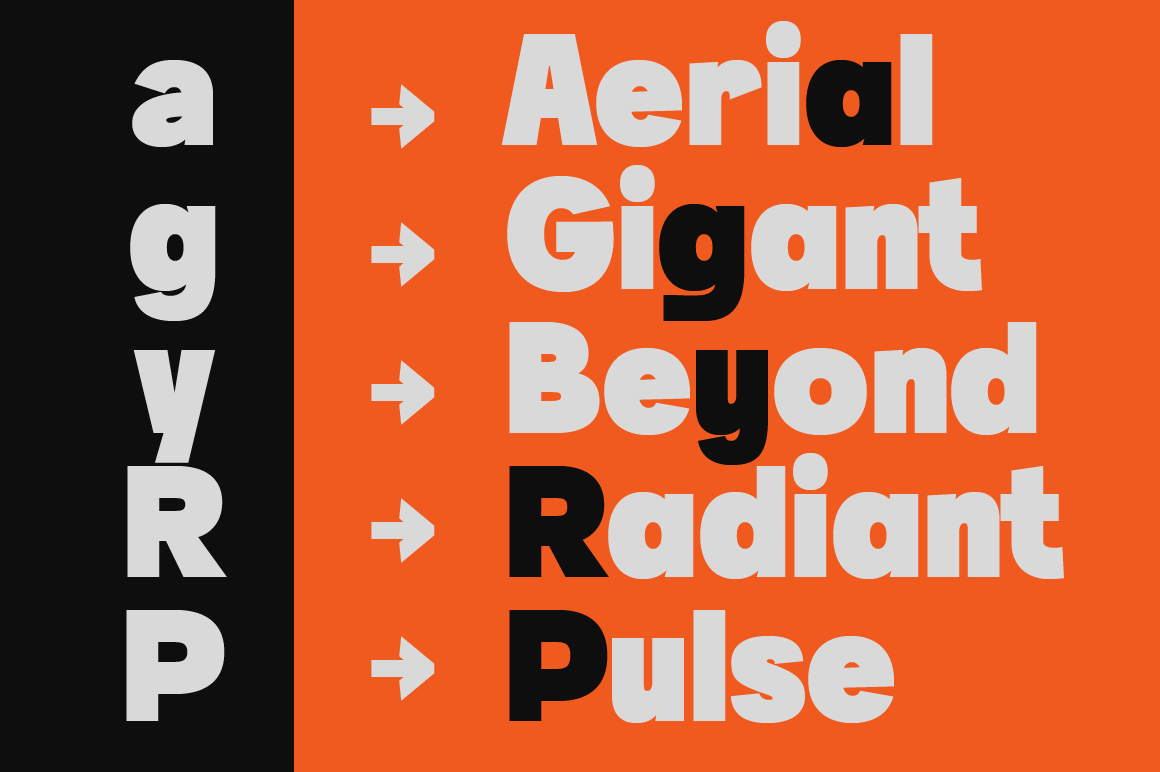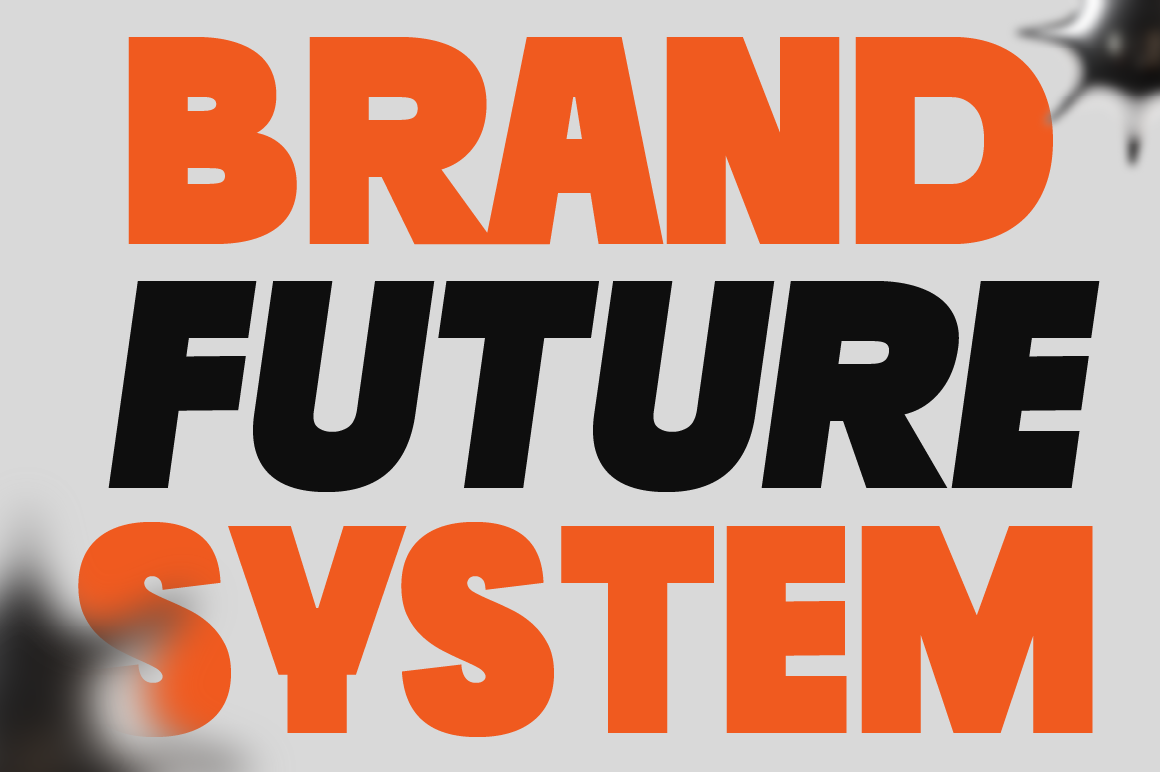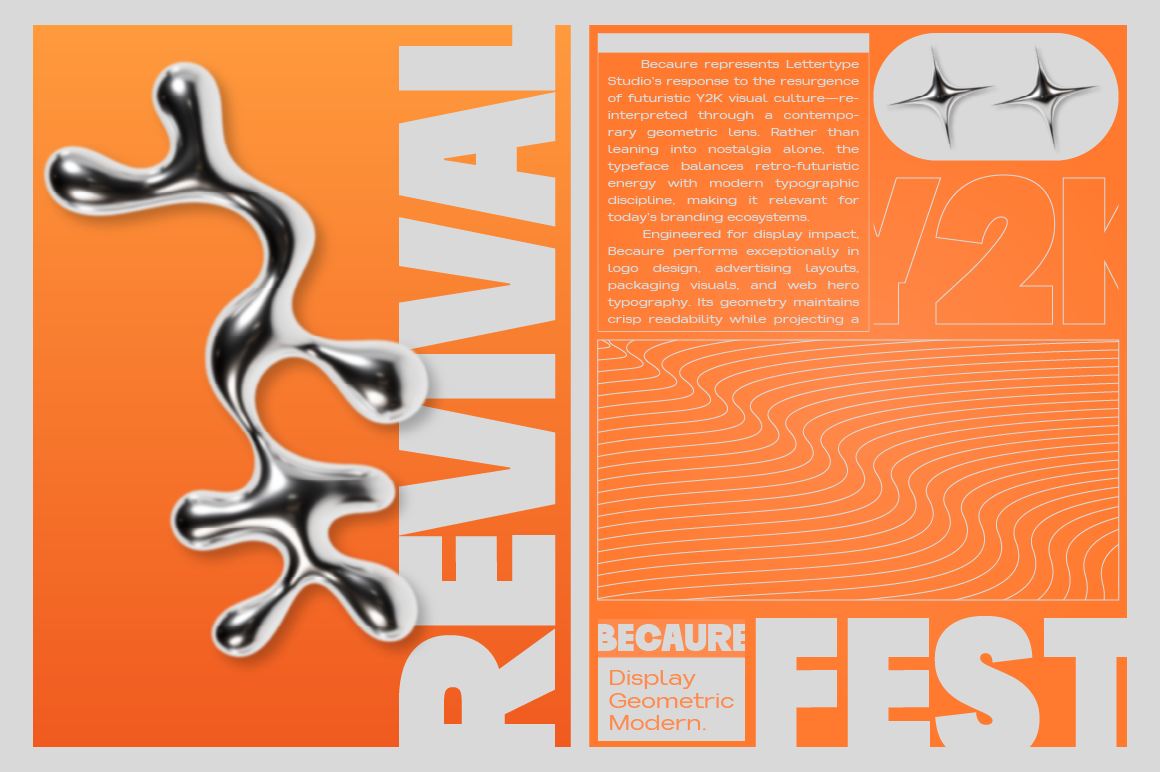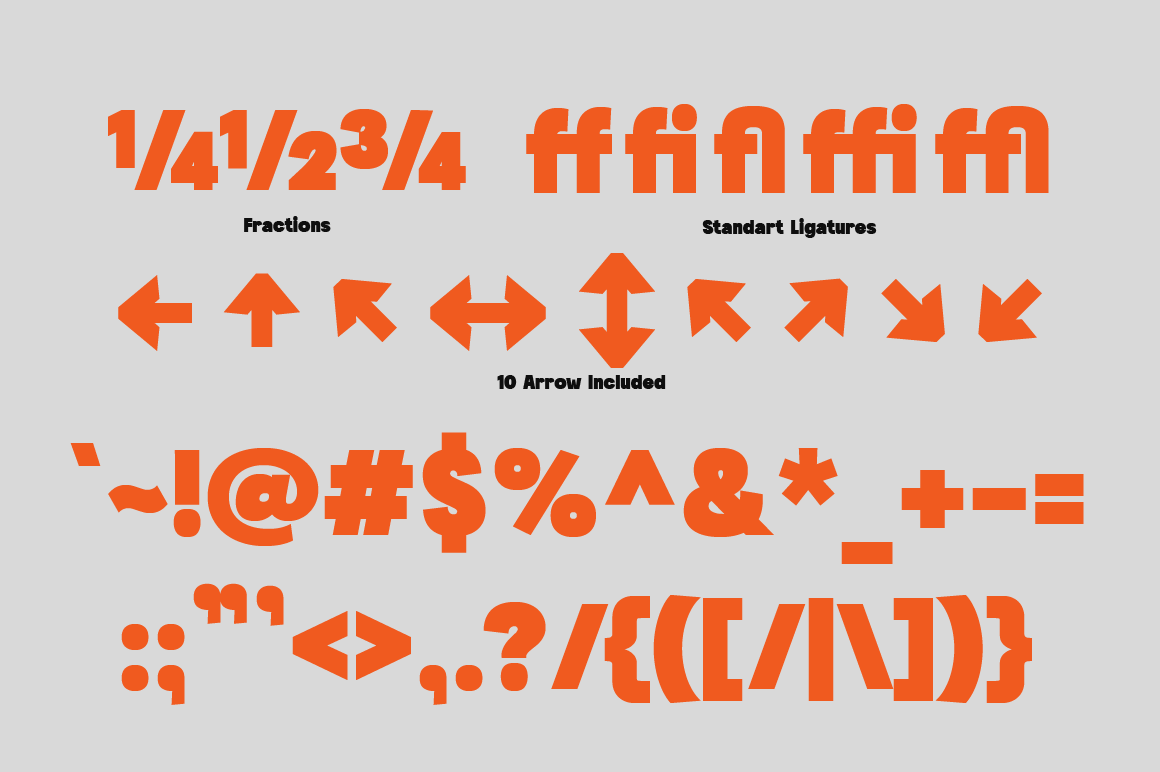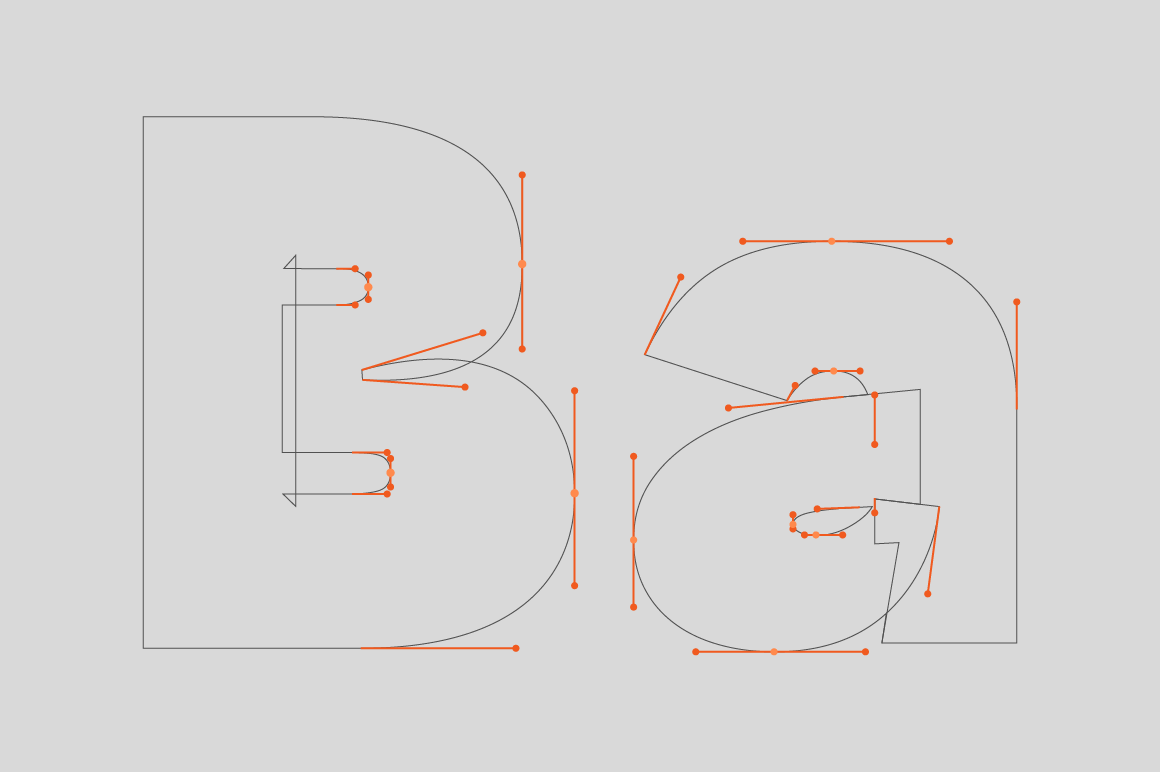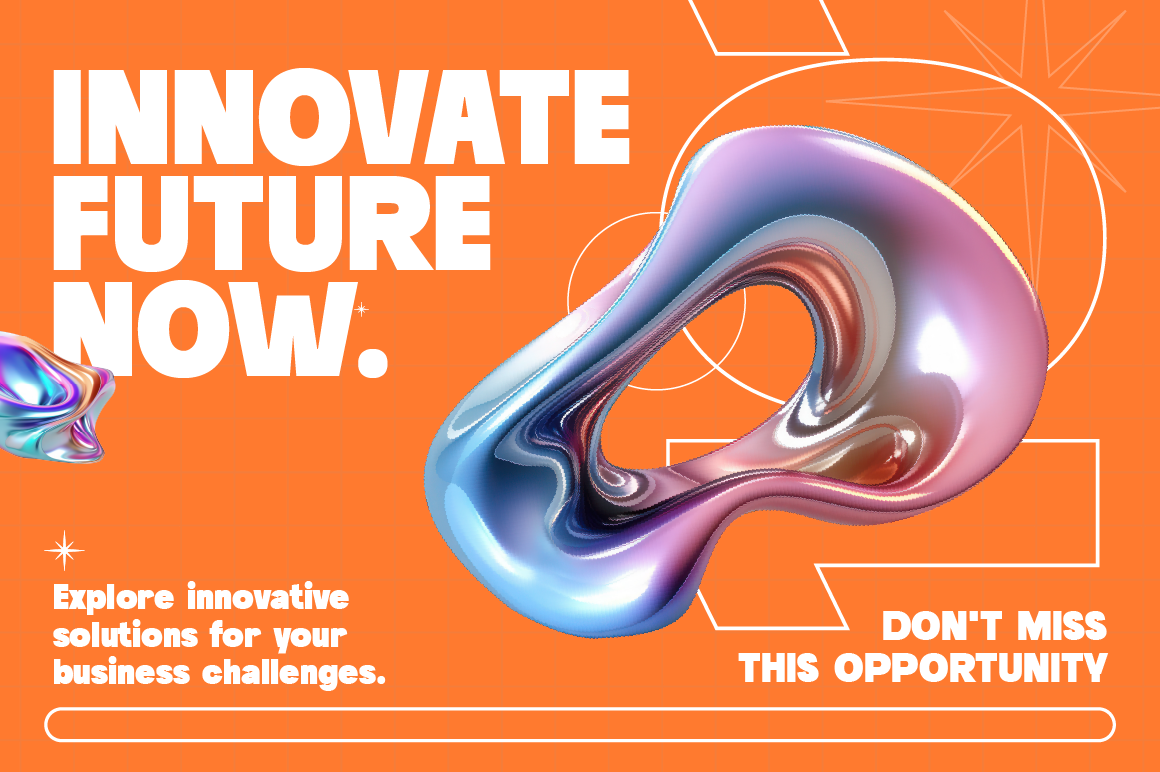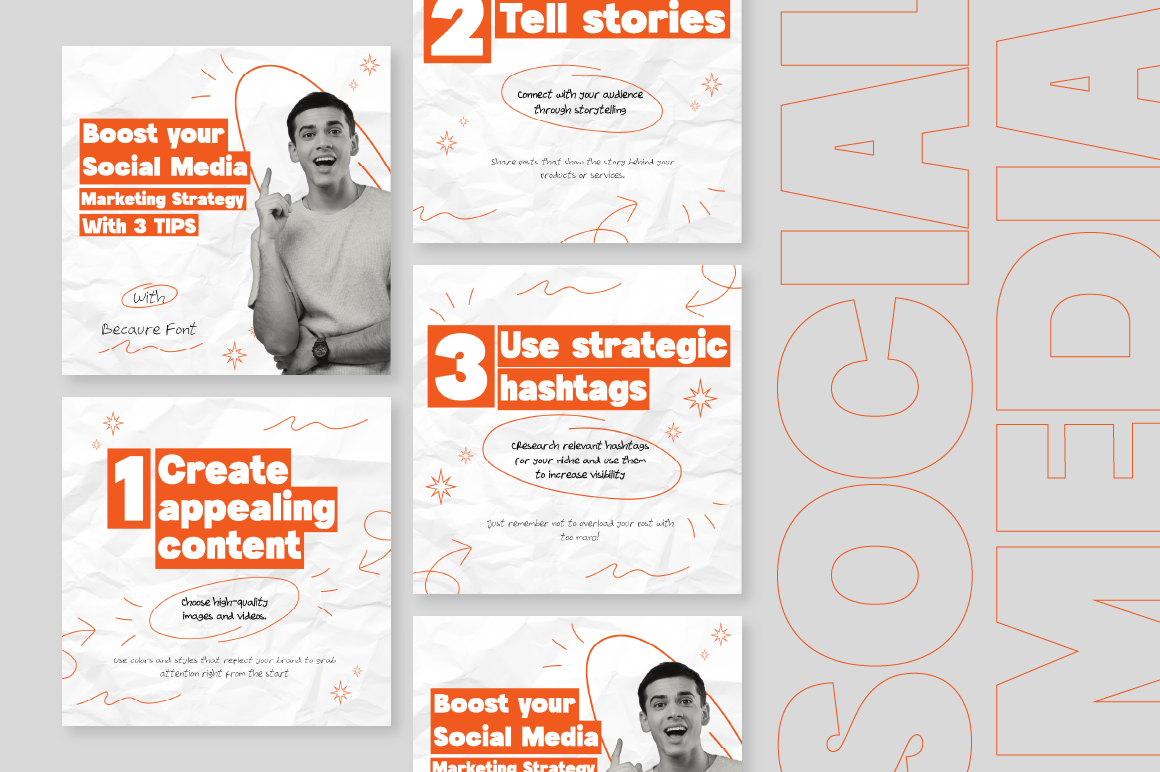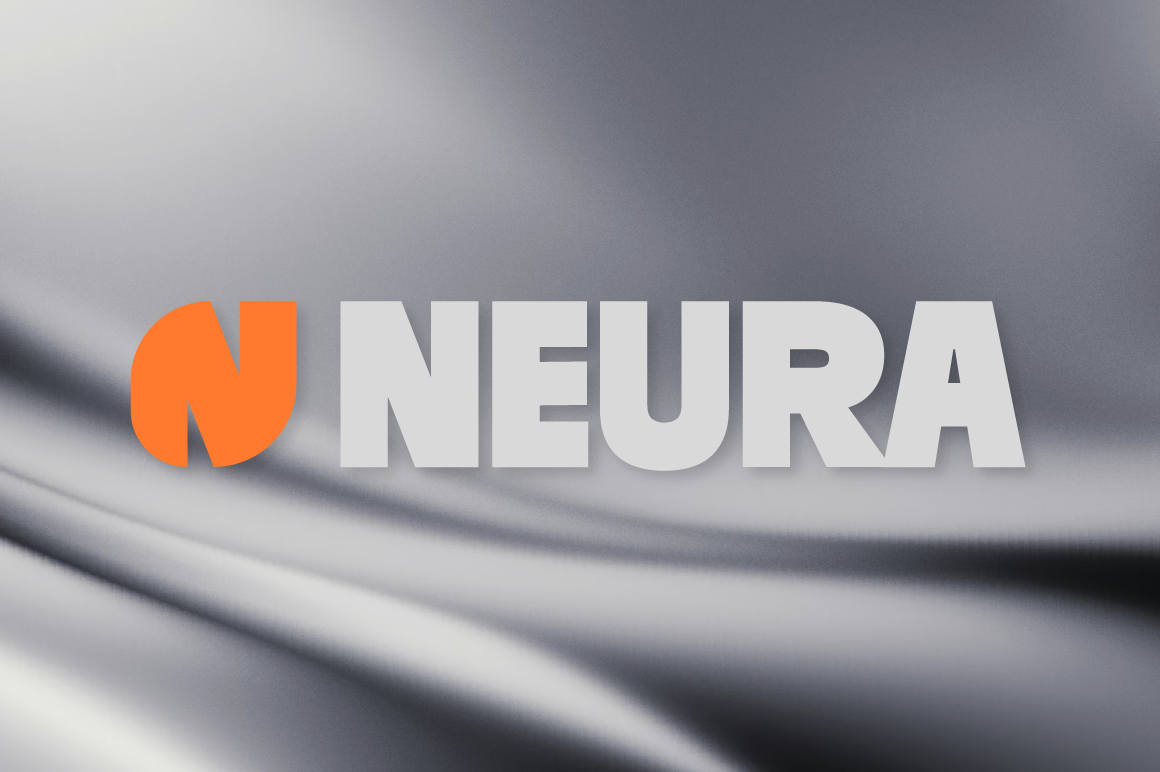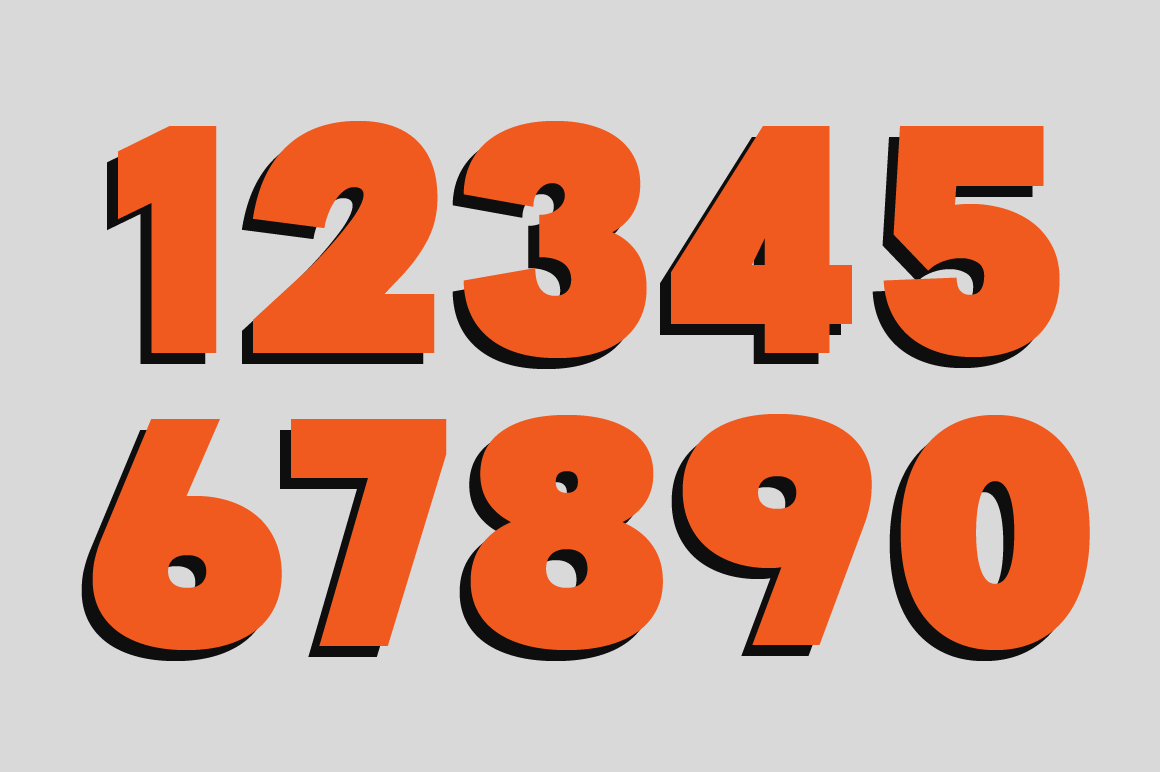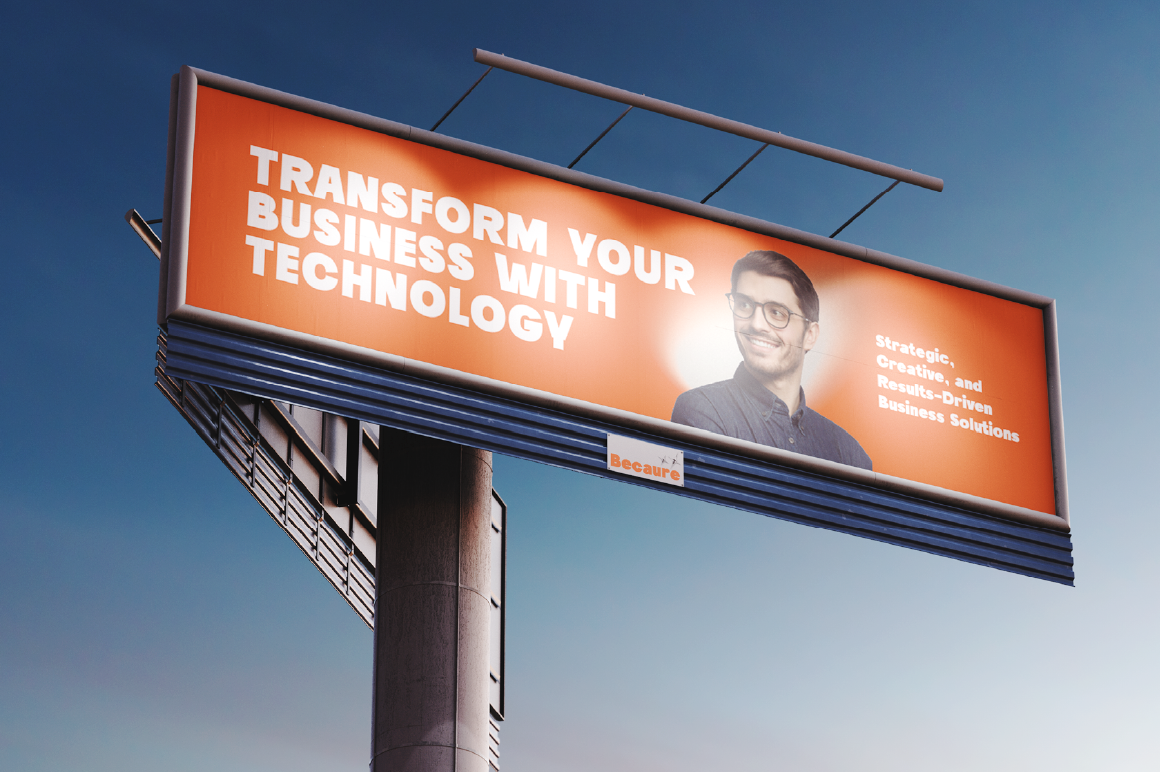
Becaure - Regular
Becaure - Italic
Becaure represents Lettertype Studio’s response to the resurgence of futuristic Y2K visual culture—reinterpreted through a contemporary geometric lens. Rather than leaning into nostalgia alone, the typeface balances retro-futuristic energy with modern typographic discipline, making it relevant for today’s branding ecosystems.
Engineered for display impact, Becaure performs exceptionally in logo design, advertising layouts, packaging visuals, and web hero typography. Its geometry maintains crisp readability while projecting a confident technological tone—aligning with industries ranging from startups and digital platforms to fashion campaigns and music promotions.
As part of the studio’s evolving sans-serif catalogue, Becaure strengthens the Modern Geometric category while introducing a trend-aware visual narrative—bridging timeless structural design with the expressive momentum of the Y2K revival era.
Becaure Features:
• 2 Styles
• Upright & Oblique
• Alternates: a, g, y, P & R (ss01) & Extra Currency (฿,₭, ₱, ₸, ₹, ₺, & ₽)
• Extra glyphs: arrows (← ↑ → ↓ ↔ ↕ ↖ ↗ ↘ ↙)
• 469 Glyphs Total
• 270+ Languages Supports
Perfect For:
• Branding & Visual Identity
• Campaign & Advertising Design
• Posters & Event Promotions
• Logo & Wordmark Creation
• Digital Hero & Web Headlines